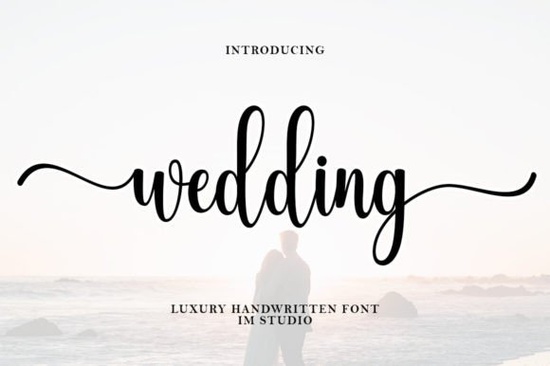
If you're designing wedding stationery whether for a client, your own big day, or a print-on-demand shop the Wedding Font is one of those quiet standouts that works beautifully without demanding attention. It’s not flashy or overly decorative, but its graceful, natural handwritten rhythm gives invitations, thank-you cards, and signage a warm, personal feel. Unlike some script fonts that look stiff or overly uniform, this one has subtle variation in stroke weight and flow, making it feel genuinely hand-lettered not digitized.
What makes Wedding Font work so well for real projects?
It’s designed with practical use in mind. The letters connect smoothly where they should, but also offer clean, legible standalone characters so it reads clearly even at smaller sizes, like on RSVP cards or place settings. Because it’s PUA encoded, you get instant access to ligatures, stylistic alternates, and swashes directly from your font menu (no need for special software or character maps). That means swapping in a prettier “&” or a more elegant capital “W” takes seconds not a tutorial.
It’s also versatile beyond weddings. Try it for boutique packaging labels, small-batch soap tags, or even a cozy café’s seasonal menu board. Its elegance doesn’t feel out of place next to rustic textures or minimalist layouts. And if you’re building a brand identity for a wedding planner, florist, or calligraphy service, this font pairs naturally with clean sans-serifs for balanced headings and body text.
How does it compare to other popular script fonts?
While Mama Papa Duo Font brings playful charm for family-focused designs, Wedding Font leans into refined simplicity ideal when sophistication matters more than whimsy. For Disney-themed baby announcements, the Baby Disney Font adds recognizable magic, but Wedding Font stays timeless and neutral. Similarly, Beautiful Disney Duo Font shines for themed celebrations, while Wedding Font fits seamlessly into traditional, modern, or boho aesthetics without leaning into any one trend.
Even within the same category script fonts it stands apart. Farmhouse Breakfast Duo Font leans rustic and casual, great for farmers’ markets or breakfast cafes. Milkshakehoney Font has a bouncy, youthful energy perfect for dessert shops or kids’ parties. Wedding Font, by contrast, carries quiet confidence like a well-chosen suit or a classic pearl necklace. It doesn’t shout. It just belongs.
Who uses this font and how?
Small business owners often grab it for ready-to-print templates sold on Etsy or Creative Market. Designers layer it over soft watercolor backgrounds for digital invites. Print-on-demand sellers use it for customizable mugs, framed quotes, and canvas prints aimed at newly engaged couples. Crafters pair it with vinyl cutters for handmade signs or chalkboard-style menus. Even educators creating classroom “Congratulations, Graduate!” banners find it useful it’s formal enough for milestones, but soft enough to feel heartfelt.
A few things to keep in mind before using it
- Pair it thoughtfully: Avoid stacking multiple script fonts together Wedding Font shines best with a simple sans-serif (like Montserrat or Lato) or a gentle serif (like Playfair Display) for contrast.
- Check licensing: The standard license covers personal and commercial use including POD but always verify the specific terms on the product page if you plan to use it in a physical product sold at scale.
- Test readability: While it’s highly legible, avoid using all caps or tight letter-spacing in long paragraphs. It’s at its best for headlines, short phrases, and accent text.
If you’re already working with other script fonts and want something that feels intentional not trendy Wedding Font is worth adding to your toolkit. It won’t replace every script you own, but it fills a specific, frequently needed role: quiet elegance, done right.